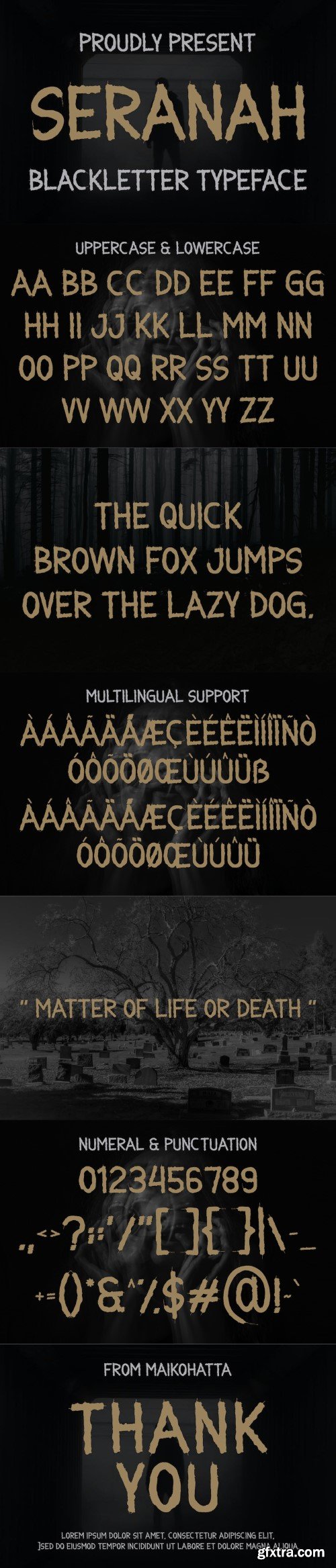
瑟纳赫 - 黑体字
Seranah a distinct, highly detailed, and Horror Metal font. It would make a great choice for exquisite retro-urban designs, tattoo business branding, logos, vintage designs, and more.
- Uppercase
- Lowercase
- Multilingual